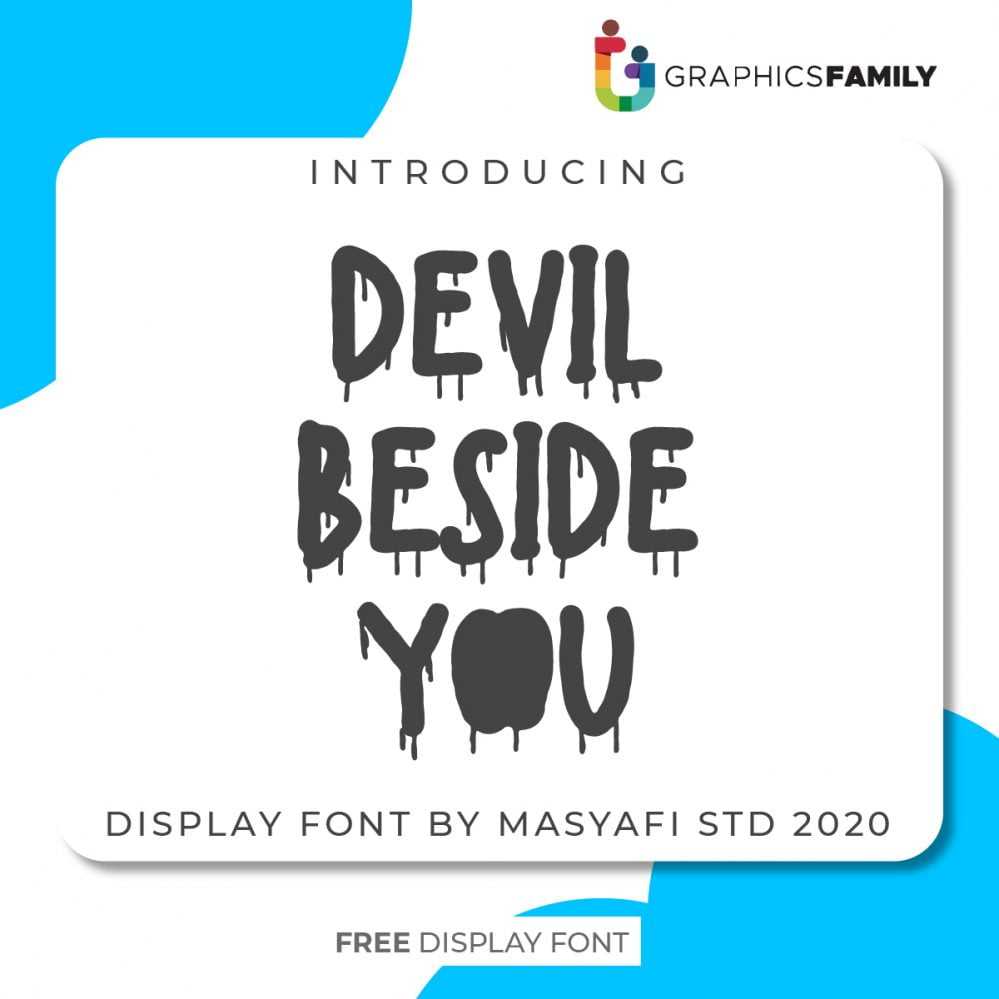
Devil Beside You Font
Devil Beside You Font Devil Beside You is a scary and dramatic display font. It is ideal for each of your spooky designs or Halloween projects!